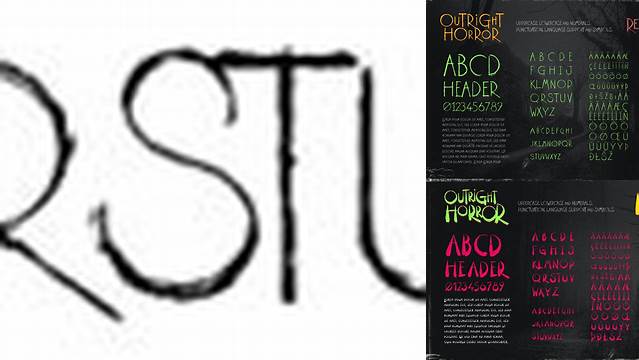
Outright Horror Font: Free Download For Spooky Designs
Are you looking to infuse your designs with a chilling, eerie vibe? Look no further! The outright horror regular font is exactly what you need to capture that spooky essence. This font is perfect for a variety of projects, from crafting eye-catching horror movie posters to designing spine-tingling Halloween invitations. Let's dive into why the outright horror regular font is a must-have in your design toolkit.
What Makes Outright Horror Regular Font Special?
Outright horror regular font stands out due to its unique ability to evoke a sense of fear and suspense. The carefully crafted letterforms often feature distressed edges, irregular shapes, and a generally unsettling aesthetic. Unlike standard fonts that prioritize clarity and readability, this font embraces imperfection to create a truly horrifying visual impact. Think of classic horror movie titles – that’s the kind of vibe this font brings to the table. The beauty of this font lies in its versatility; you can use it for headlines, logos, and even short paragraphs if you want to create an exceptionally eerie feel. Imagine using it for a haunted house advertisement – it’s guaranteed to grab attention! Moreover, this font often includes unique glyphs and ligatures that add to its overall character, making it even more distinctive and memorable. Designers often choose the outright horror regular font when they need something that screams (pun intended!) terror and suspense. It's not just a font; it's a statement, a mood setter, and a crucial element in creating a visually terrifying experience. Whether you are designing a book cover for a thriller novel or creating promotional material for a Halloween event, this font will help you achieve the desired effect. The artistry behind the font lies in its ability to tap into our primal fears, making it an incredibly effective tool for visual communication.
Key Features of Outright Horror Regular Font
When you’re considering adding the outright horror regular font to your collection, it's essential to understand its key features. These characteristics not only define the font’s aesthetic but also determine its suitability for various projects. First and foremost, the font boasts a distinctively distressed appearance, which is crucial for conveying that eerie, unsettling feeling. The edges of the letters are often rough and uneven, contributing to the overall sense of decay and horror. This isn't your polished, clean-cut typeface; it's designed to look like it has been through hell and back. Another significant feature is the irregular shapes of the characters. You won't find perfect symmetry or uniformity here. Each letter is uniquely crafted to add to the overall chaotic and frightening vibe. This irregularity makes the font feel more organic and less manufactured, enhancing its horror appeal. Furthermore, the outright horror regular font often includes special glyphs and ligatures that are not found in standard fonts. These can include symbols, alternative letterforms, and connected characters that add an extra layer of visual interest and uniqueness. For instance, you might find a letter 'A' with a dripping blood effect or a ligature that combines two letters into a creepy symbol. The font's weight and contrast are also important considerations. Typically, the outright horror regular font will have a bold, heavy weight to ensure it stands out and makes a strong impact. The contrast between thick and thin strokes may also be exaggerated to add to the dramatic effect. Finally, consider the overall readability. While horror fonts prioritize aesthetics over perfect clarity, a good outright horror regular font will still maintain a reasonable level of readability, especially in larger sizes. You want your message to be legible, even if it's shrouded in a veil of terror. All these features combined make the outright horror regular font a powerful tool for creating visually stunning and terrifying designs.
Where to Use Outright Horror Regular Font?
The versatility of the outright horror regular font means it can be used in a variety of creative projects. If you are wondering where this font would shine, think about any scenario where you want to evoke fear, suspense, or a general sense of unease. One of the most obvious applications is in horror movie posters. The font's distressed and irregular appearance perfectly complements the visual themes of the genre, grabbing the viewer's attention and setting the tone for the film. Imagine seeing a movie poster with a title rendered in this font – it immediately signals that you're in for a terrifying experience. Halloween-themed designs are another perfect fit. From party invitations to promotional materials for haunted houses, the outright horror regular font can add that extra layer of spookiness. Think of flyers for a Halloween costume party or signs for a haunted corn maze – this font will make them stand out and create the desired atmosphere. Book covers for horror and thriller novels are also ideal candidates. A well-designed book cover is crucial for attracting readers, and the outright horror regular font can instantly convey the genre and mood of the story. It's like a visual promise of the terrifying content within. Video game design is another area where this font can be highly effective, particularly for horror or survival games. Using the font in the game's title, menus, and other visual elements can enhance the overall immersive experience and create a sense of dread. Beyond these obvious applications, consider using the outright horror regular font for theatrical productions, music album covers (especially for metal or industrial bands), and even unique branding projects that aim to stand out with a dark and edgy aesthetic. The key is to use it judiciously and in contexts where its distinctive style will enhance the overall message and visual impact. So, whether you're working on a big-budget movie poster or a small, personal project, the outright horror regular font can be a powerful tool for creating truly memorable and terrifying designs.
Tips for Using Outright Horror Regular Font Effectively
So, you’ve got your hands on the outright horror regular font – awesome! But how do you make sure you’re using it to its full, terrifying potential? Here are some tips to help you create truly spine-chilling designs. First off, consider the context. This font is all about creating a mood, so make sure it aligns with the overall theme of your project. Using it in a children’s birthday party invitation, for example, would be a major misstep. Stick to horror movies, Halloween events, thriller novels, and other scenarios where a sense of fear and unease is appropriate. Pair it wisely. The outright horror regular font is a statement piece, so you’ll want to choose complementary fonts that don’t compete with its distinctive style. A clean, simple sans-serif font like Arial or Helvetica can work well for body text, allowing the horror font to take center stage in headlines and titles. Don’t overuse it. Less is often more when it comes to horror fonts. Using it for every single word on your design can quickly become overwhelming and dilute its impact. Reserve it for key elements like titles, headings, and short phrases that you want to emphasize. Experiment with colors. The right color palette can enhance the font’s eerie effect. Dark colors like black, deep red, and shades of gray are classic choices for horror-themed designs. You can also try using contrasting colors to make the font stand out even more. Play with effects. Adding effects like shadows, glows, and textures can further enhance the font’s visual impact. A subtle drop shadow can give the letters a sense of depth, while a glowing effect can create an otherworldly feel. Experiment with different textures to add to the overall sense of decay and horror. Pay attention to spacing. Proper kerning and leading are crucial for readability, even with a horror font. Make sure the letters are spaced evenly and that there’s enough space between lines of text to prevent them from running together. Finally, always test your design on different devices and in different sizes to ensure it looks good across the board. What looks great on your computer screen might not translate well to a printed poster or a mobile device. By following these tips, you can use the outright horror regular font to create designs that are truly terrifying and unforgettable.
The outright horror regular font is a powerful tool for any designer looking to create a sense of fear and suspense. Its distressed appearance, irregular shapes, and unique glyphs make it perfect for horror movie posters, Halloween-themed designs, book covers, and more. By understanding its key features, knowing where to find it for free, and following our tips for effective use, you can harness the full potential of this spooky typeface and create designs that are truly terrifying. So go ahead, embrace the darkness, and let the outright horror regular font unleash your inner ghoul!